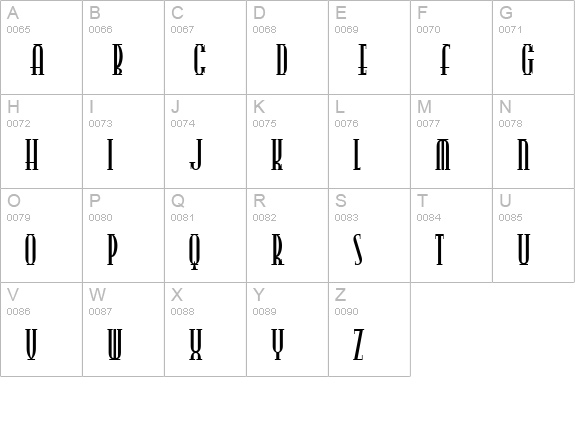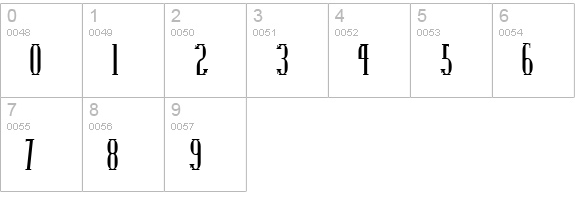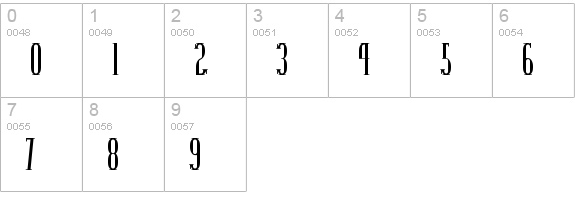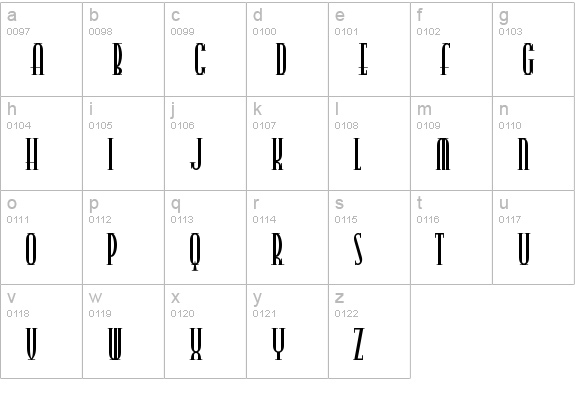
CitySlicker font is a sleek and modern typeface that exudes sophistication and urban charm. With its clean lines and contemporary feel, this font is perfect for a wide range of design projects, from branding to editorial layouts. The CitySlicker font strikes the perfect balance between elegance and edginess, making it a versatile choice for both print and digital applications. What sets CitySlicker font apart is not only its stylish design but also the fact that it is available for free download at FontsMarket.com. This means that you can easily access this high-quality font without having to spend a penny. Whether you're a professional designer looking to add a fresh touch to your projects or a hobbyist experimenting with typography, CitySlicker font is a must-have in your font library. Download CitySlicker font for free today and elevate your designs with its contemporary flair and urban sophistication. Let your creativity shine with this stylish and versatile typeface that is sure to make a statement in any project.